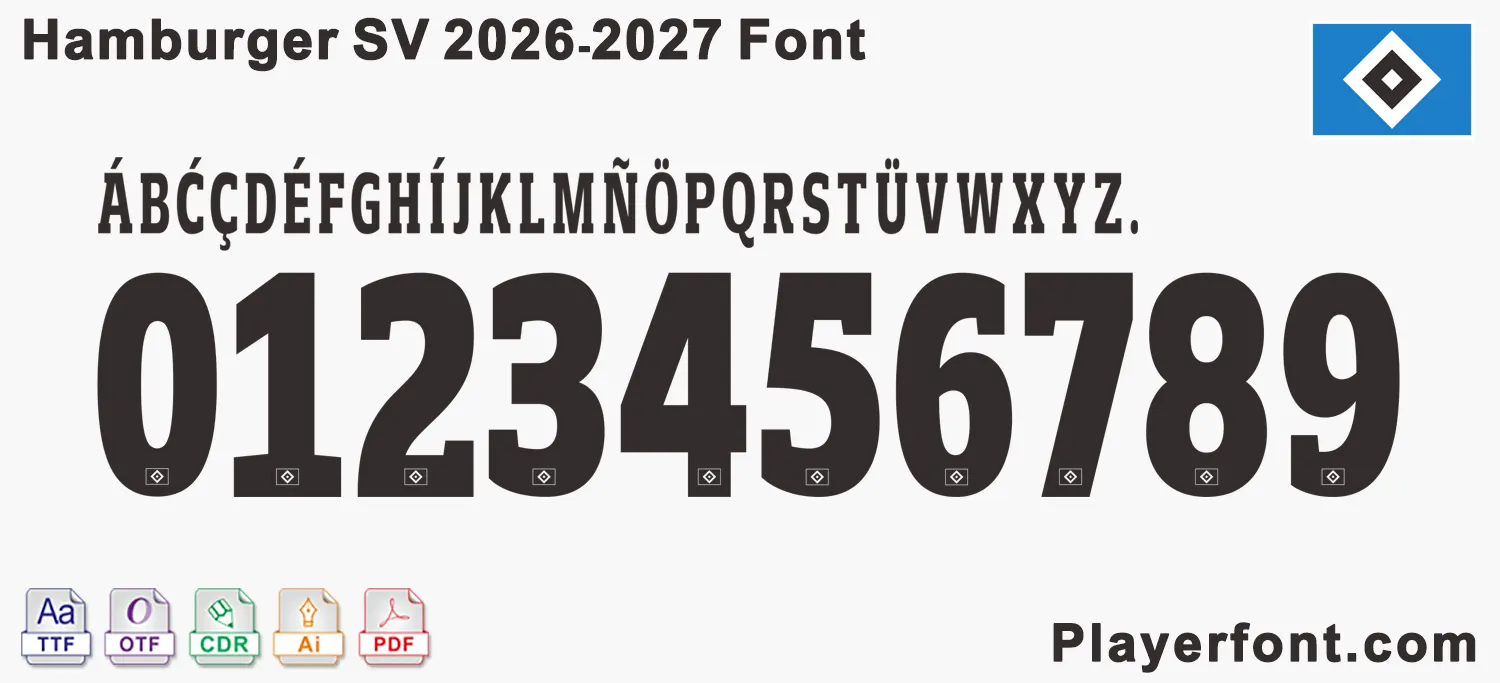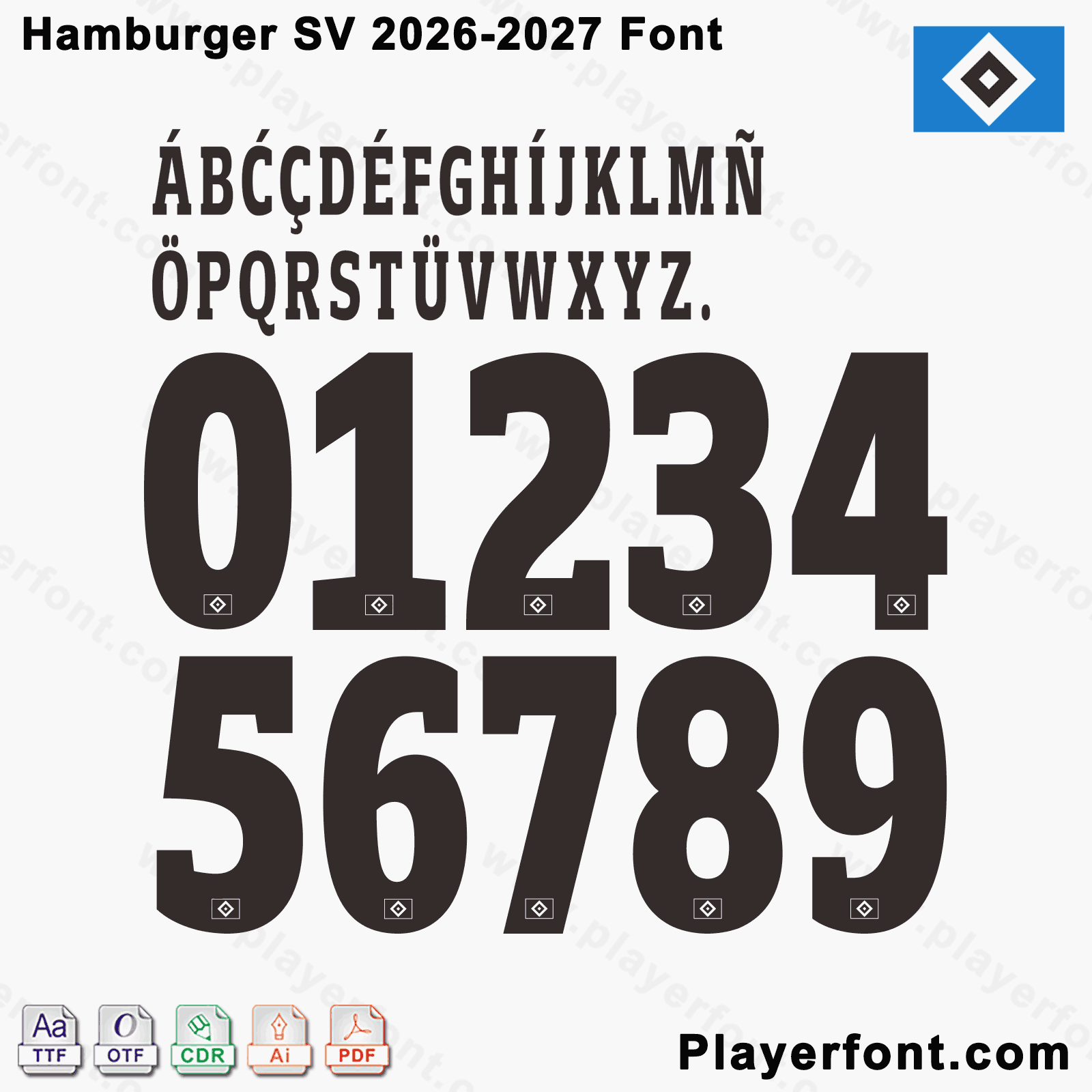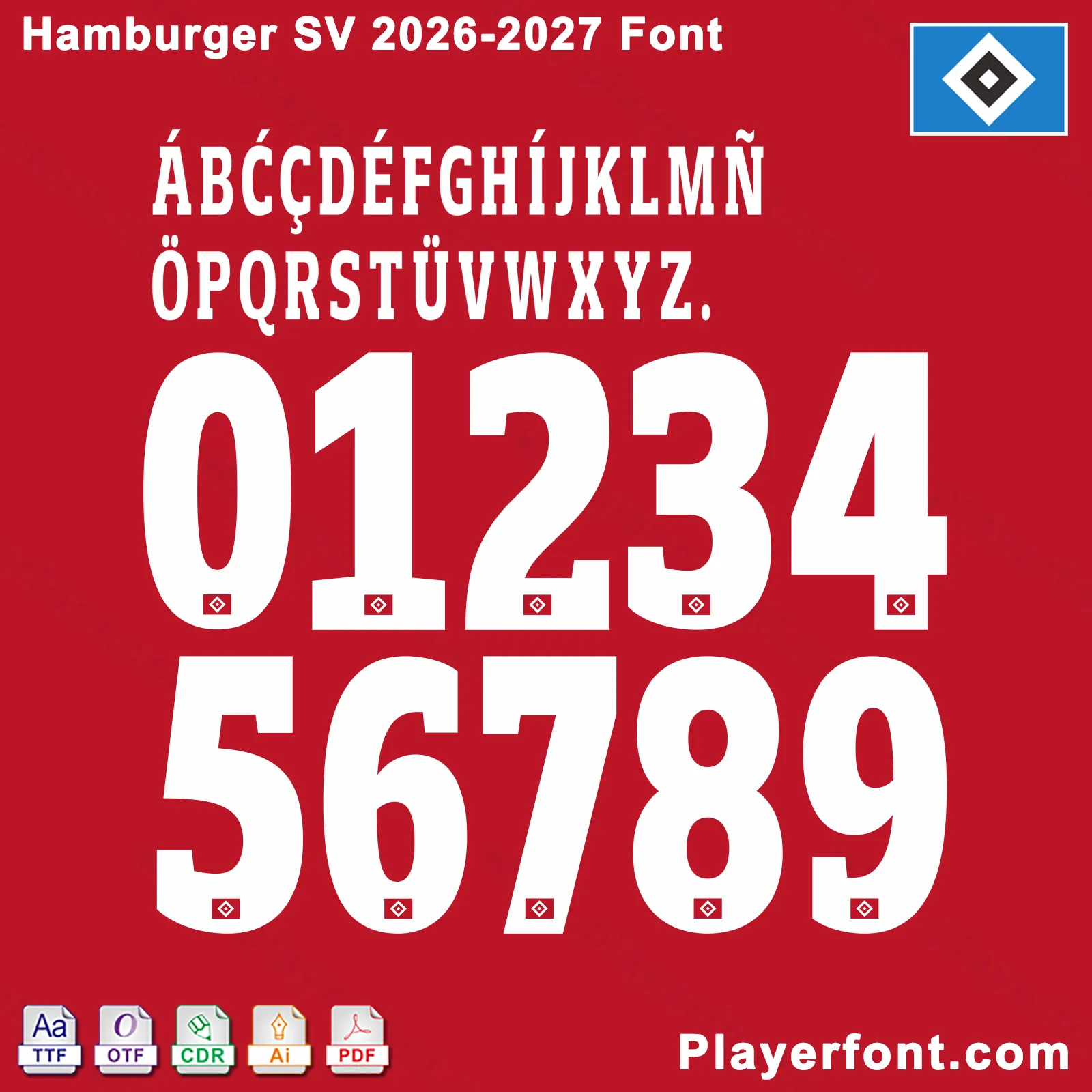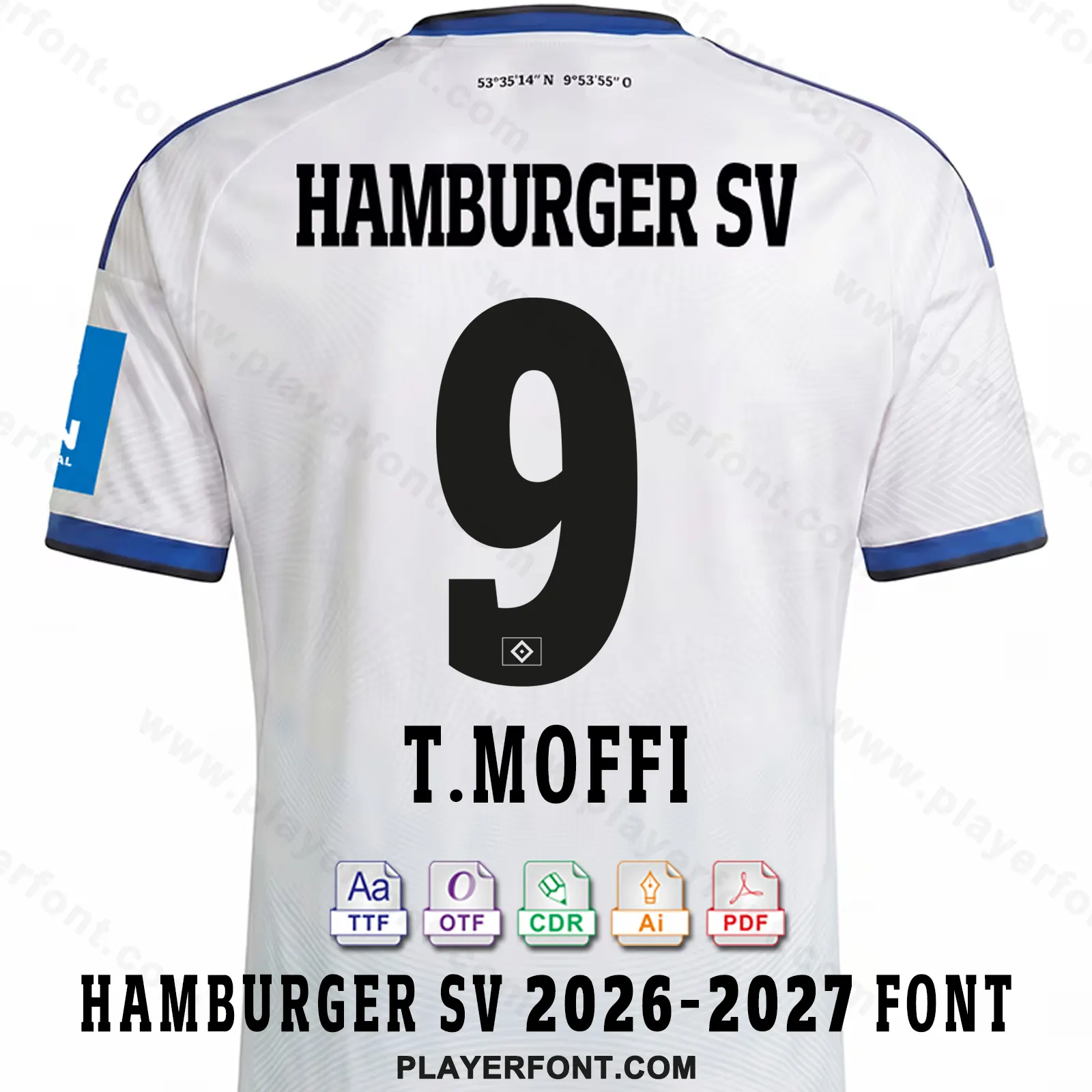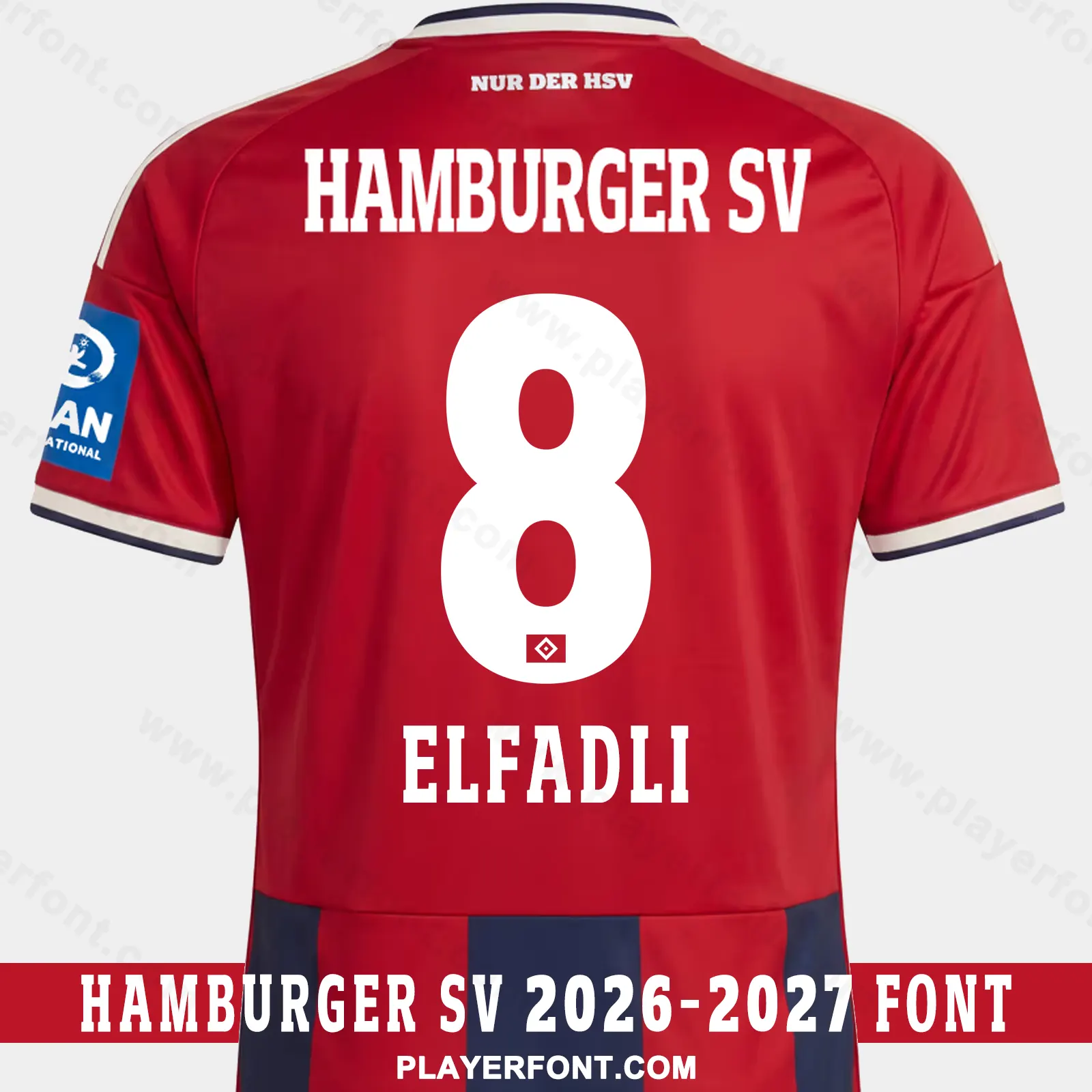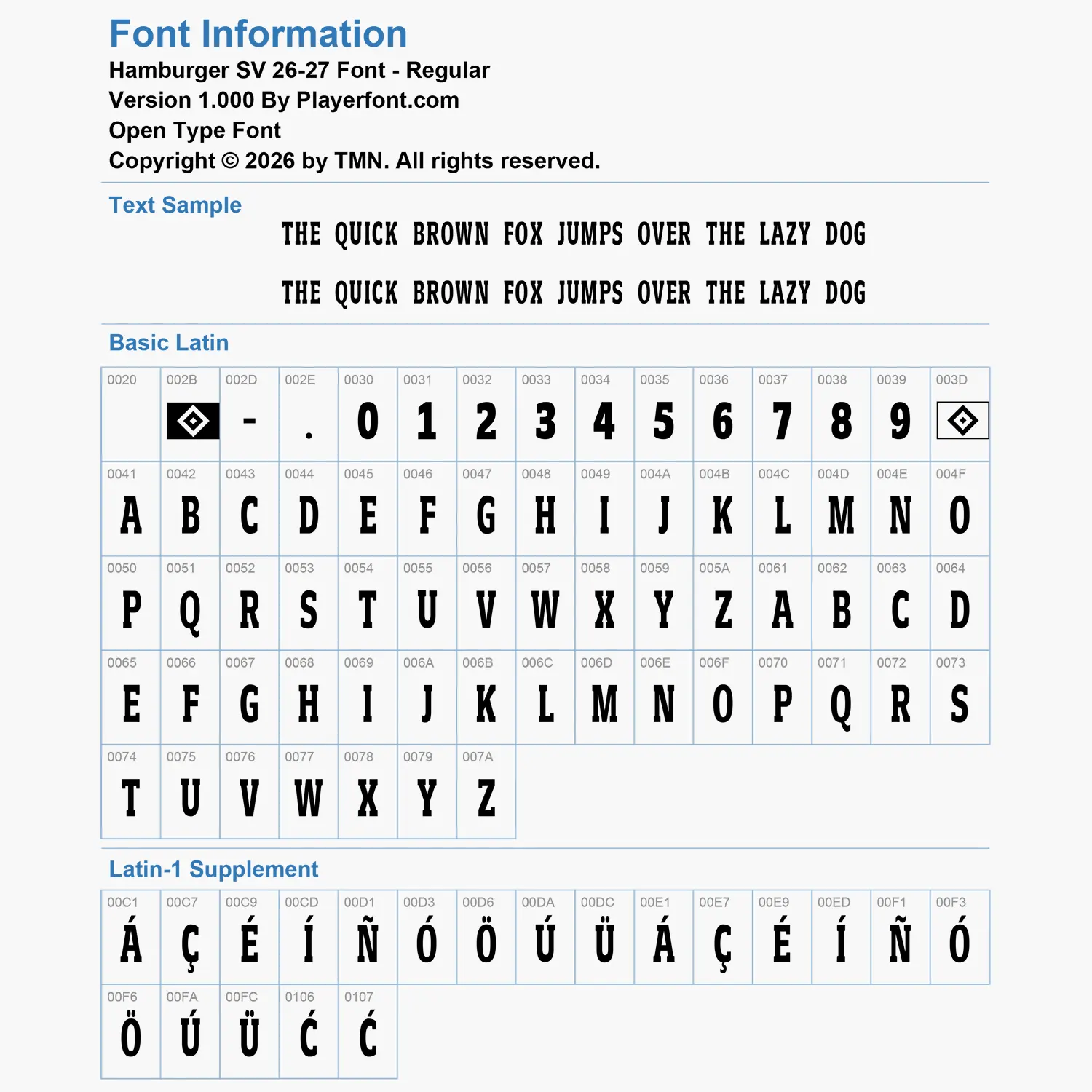
Elevate your football shirt mockups, jersey printing, and digital kit graphics with the official-style Hamburger SV 2026-2027 Font Download. Masterfully digitized by Playerfont.com, this high-performance typography set includes all numbers and letters featured on Die Rothosen home and away kits.
Key Typography Features & Glyphs:
Bold Display Block Lettering: Tall condensed sans-serif lettering with subtle serif accents for maximum visual impact on the shirt back.
Embedded HSV Diamond Crest: Features the iconic Hamburger SV diamond emblem centered at the base of numbers 0 through 9.
Multilingual Accent Support: Includes comprehensive character maps covering Basic Latin and Latin-1 Supplement (Á, Ć, Ç, É, Í, Ñ, Ö, Ü, Ć) to ensure exact renderings for international player names.